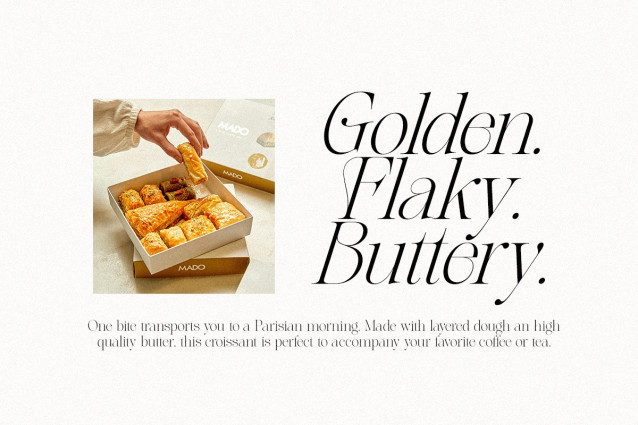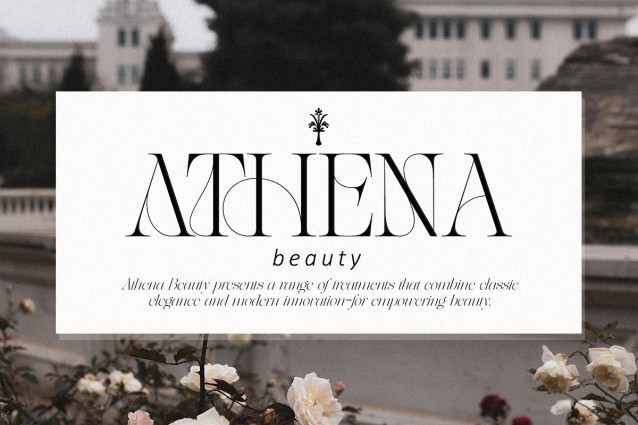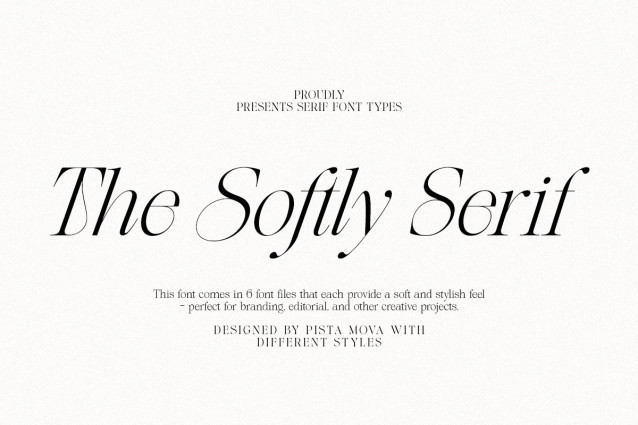
The Softly Serif Font Family
The Softly Serif Font Family: A Serif Italic Typeface for a Modern and Elegant Aesthetic. A carefully crafted serif typeface that blends classic charm with contemporary style. Its high-contrast strokes and graceful curves create a visual symphony that captivates the eye and enhances any design. Whether you’re creating a sophisticated editorial layout, a striking brand identity, or an engaging website, the subtle swoosh and beauty of Softly Serif will make your work elegant and stand out.
Immerse yourself in the world of Softly Serif, where each character has been carefully designed to exude strength and refinement. From its carefully sculpted serifs to its perfectly balanced proportions, this typeface is a testament to the timeless power of classic typography. Its true italics, with their unique personality, add a touch of dynamic movement and visual interest, allowing you to create designs that are both eye-catching and easy to read.